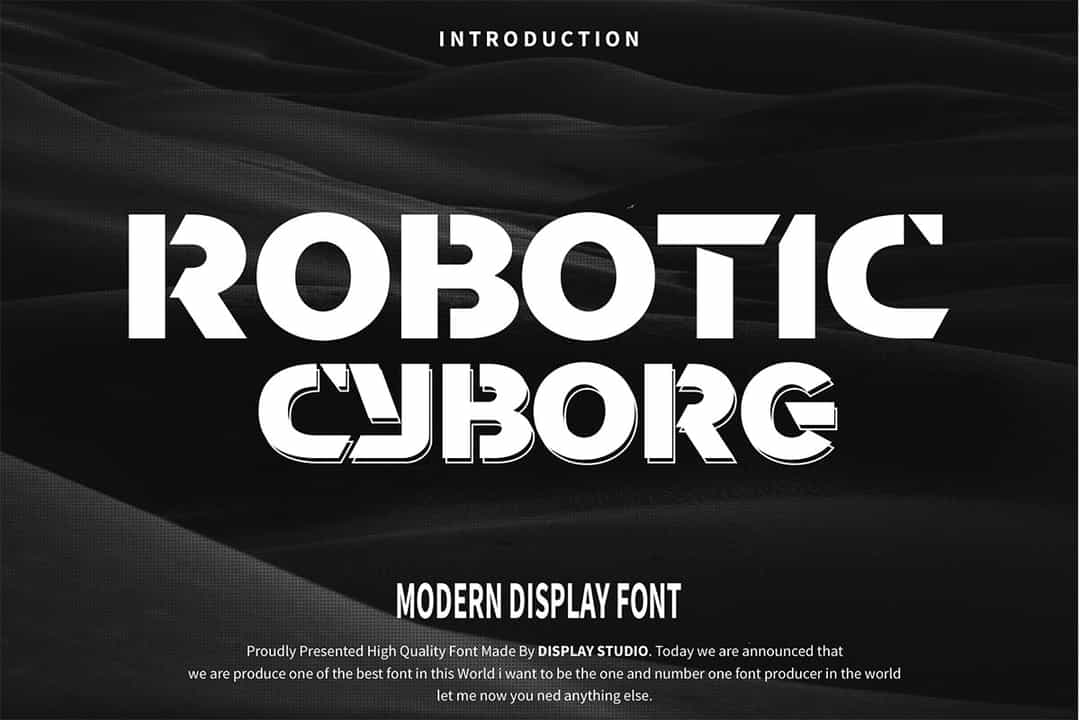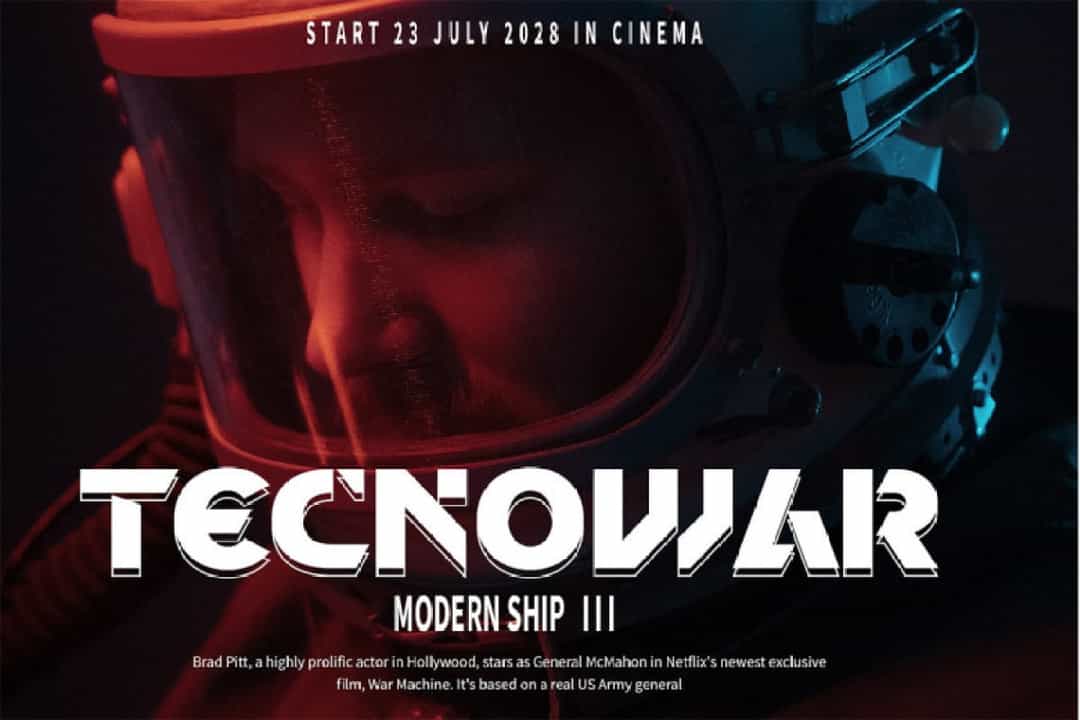
The author of the display typeface Robotic Cyborg was influenced by retro futurism visuals, modern art, yet keeping it simple and cheerful. Ideal to use with certain connections or enhancements to enhance the design even more. Such events could be based on industries, modern style, retro style, organic style or even a birthday party.